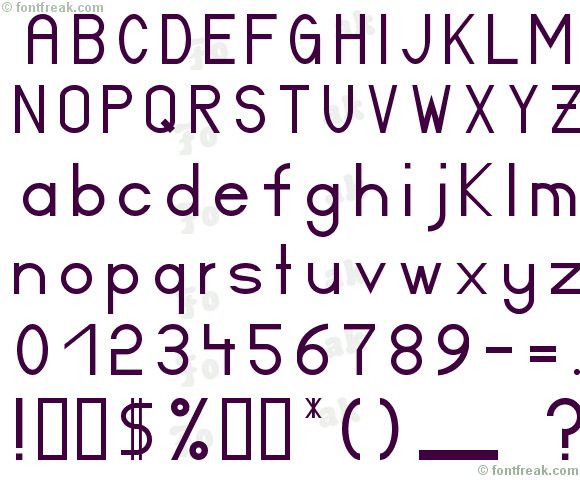
Certified
About Certified
The Certified font, designed by Dieter Schumacher in 1998, is a striking sans-serif typeface that brings a modern edge to any design project. With its clean lines and geometric forms, this font embodies clarity and professionalism, making it an excellent choice for various applications. The stroke weight is consistent, providing a uniform appearance across all characters, while the spacious letterforms enhance readability. The understated elegance of the Certified font is complemented by its subtle yet distinct personality, which allows it to stand out without being overly decorative.
This versatile typeface is particularly well-suited for wedding invitations, where its refined style can add a touch of sophistication. Additionally, it works wonderfully for movie posters, offering a contemporary look that captures attention. Restaurant menus can benefit from Certified’s clarity, ensuring that patrons easily read offerings, while branding materials for small businesses can leverage its modern aesthetic to convey professionalism and trustworthiness. Graphic designers and content creators will find this font a valuable asset in their toolkit, as it effortlessly enhances visual communication.